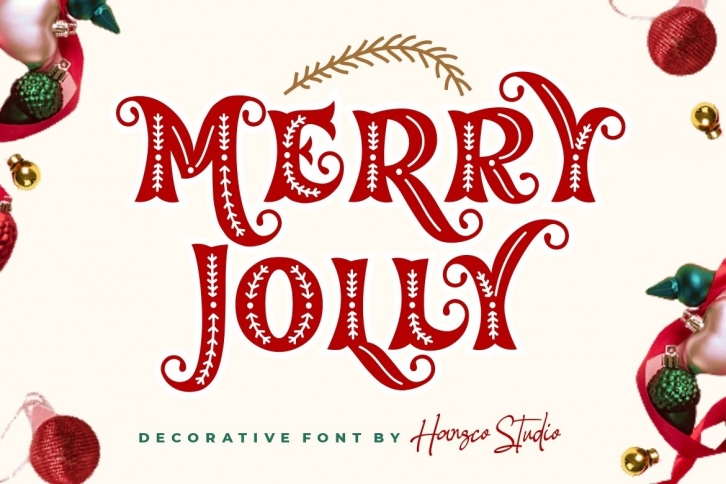
Merry Jolly is a trendy and unique font with an authentic style. It was designed by HansCo and it's a great choice for creative people who need such a font. It was released on September 9, 2021 and the file size is 18.26 MB. Merry Jolly will add an organic vibe to any design idea!